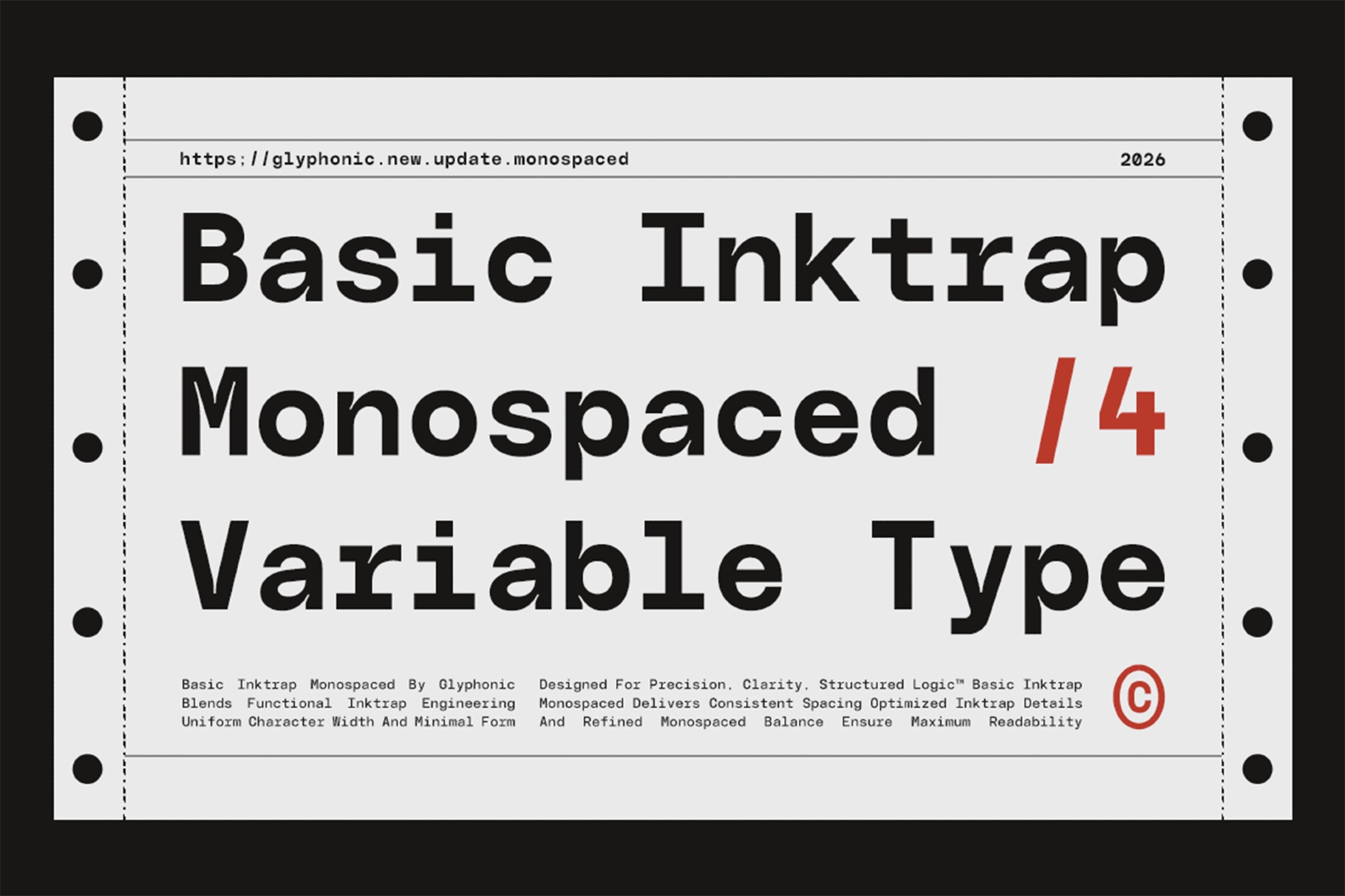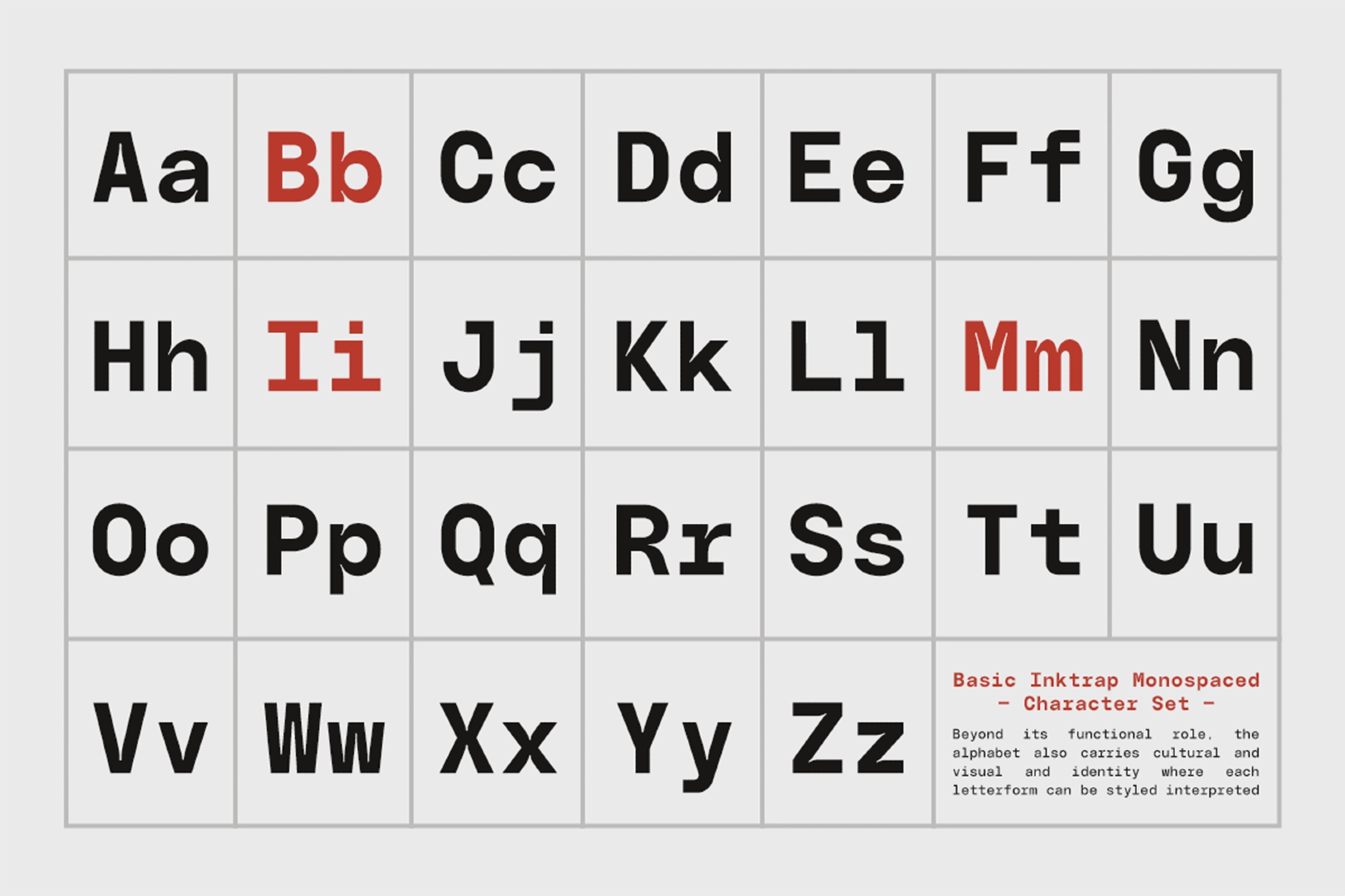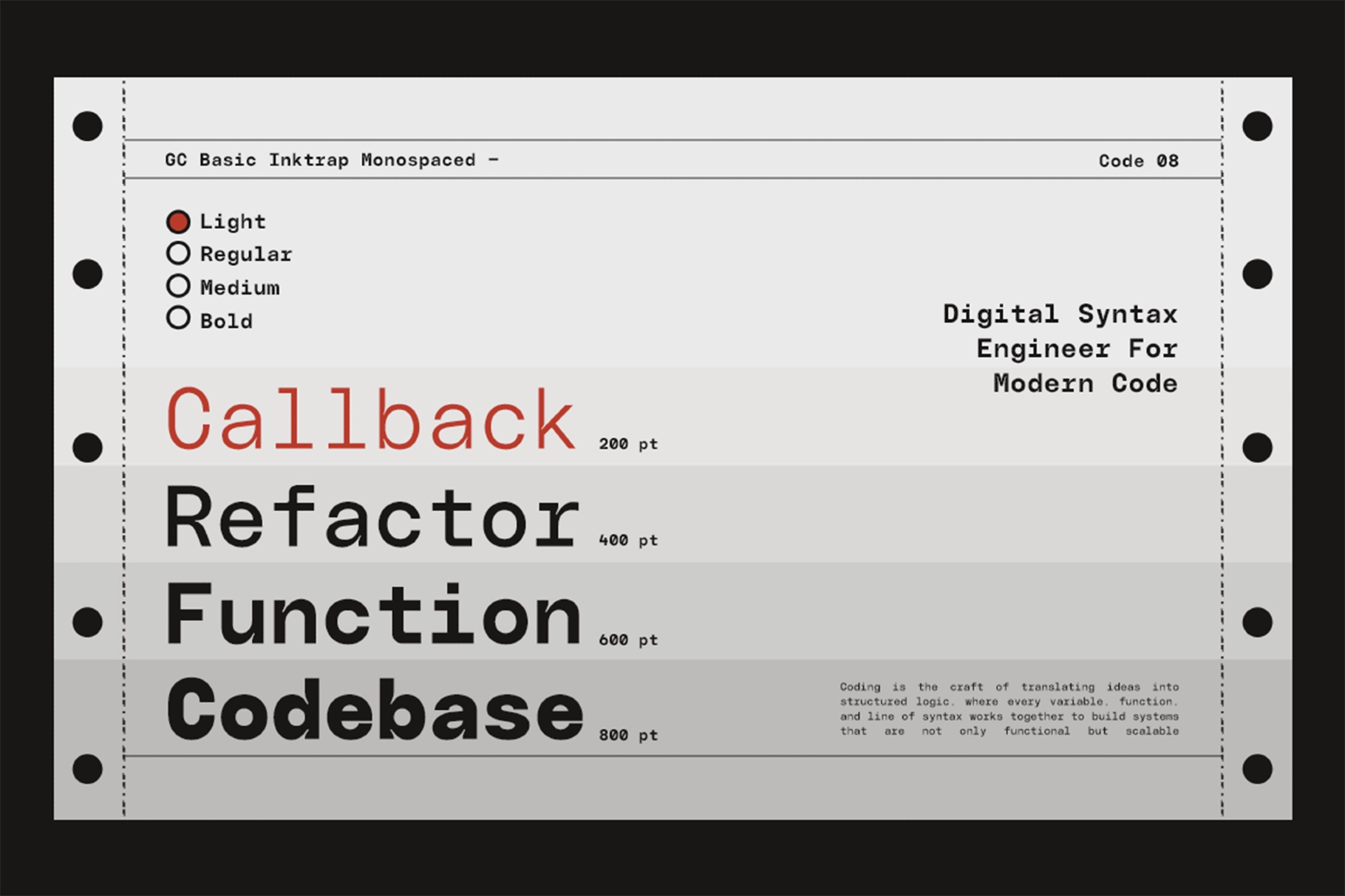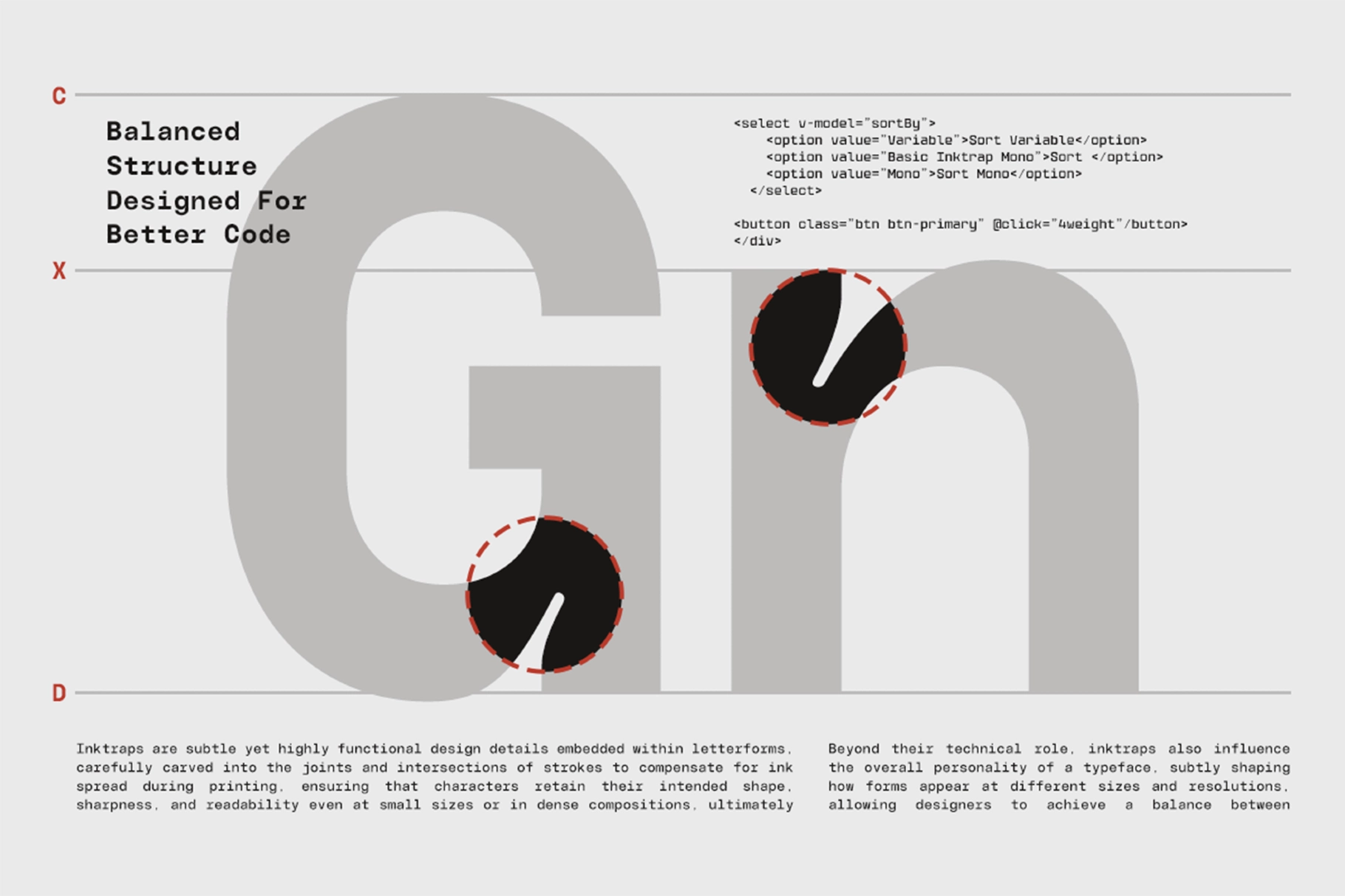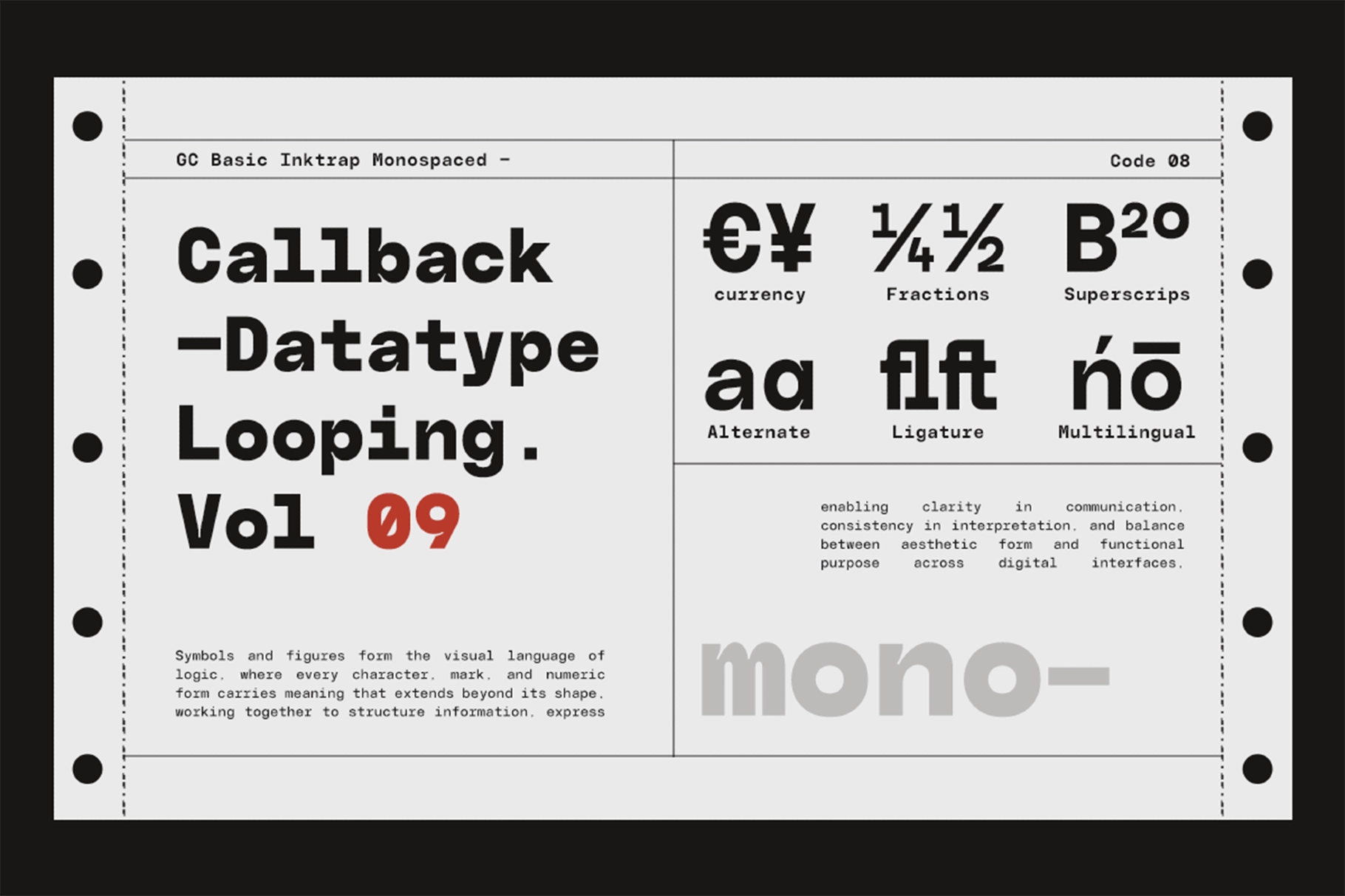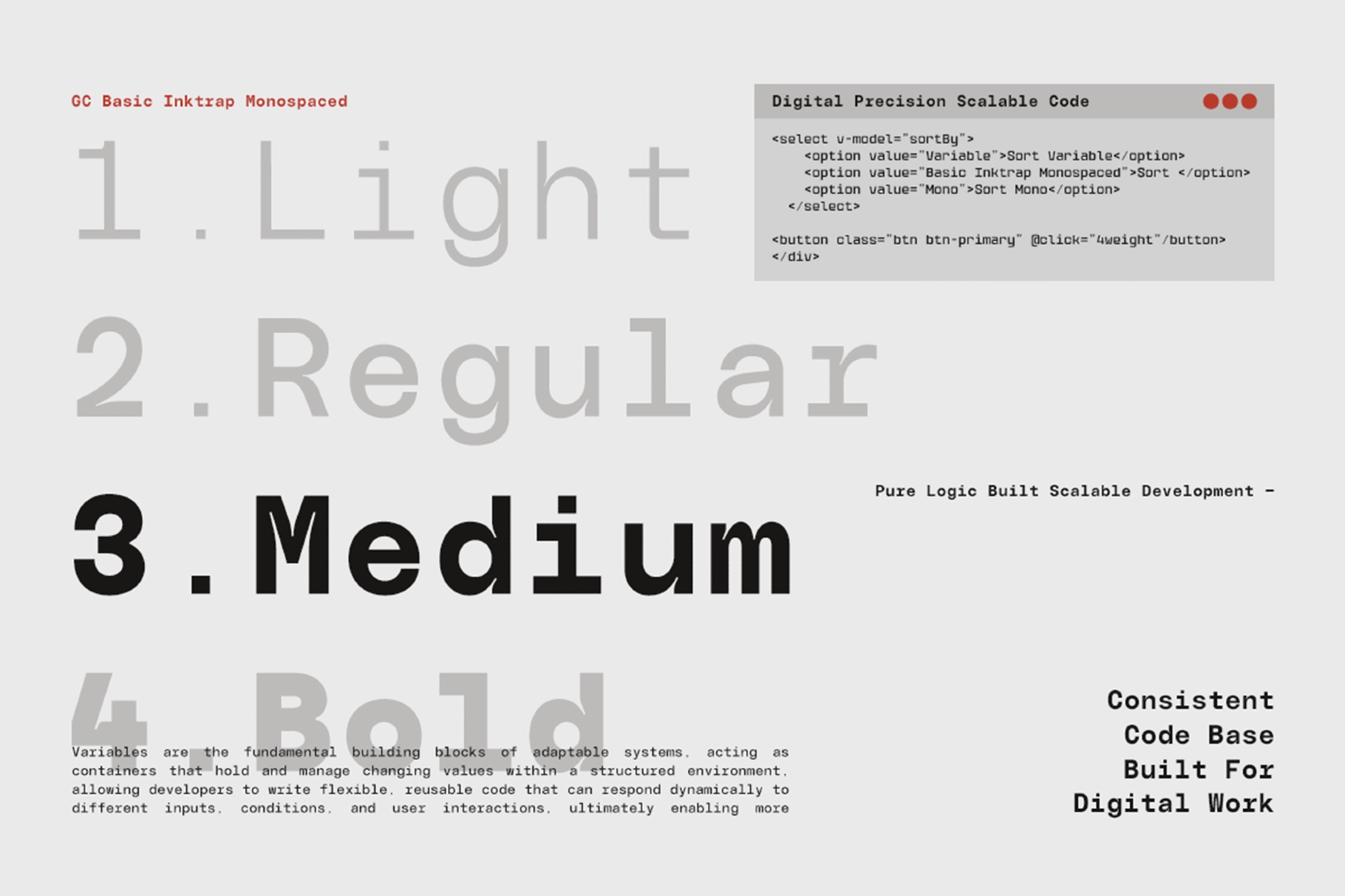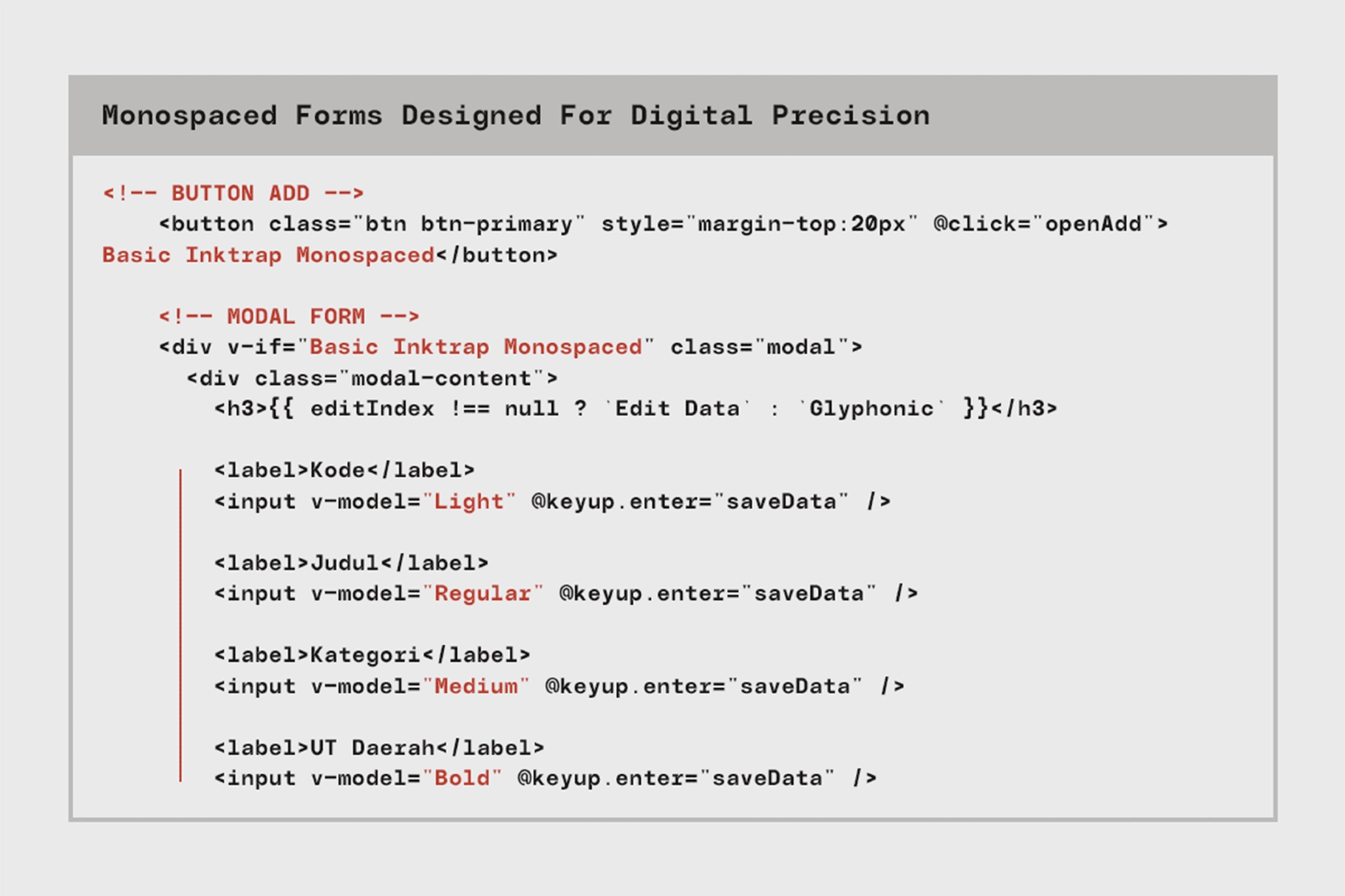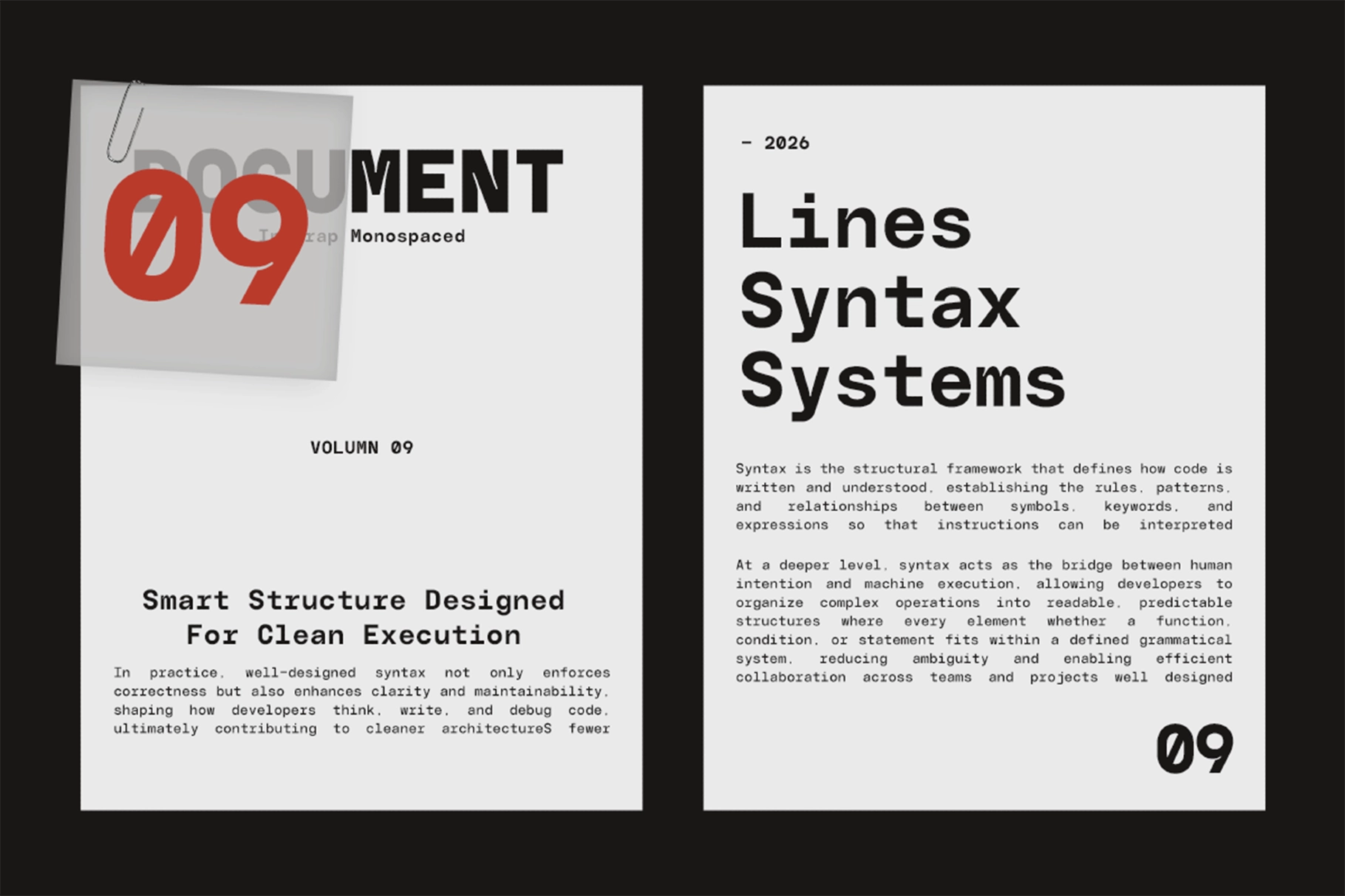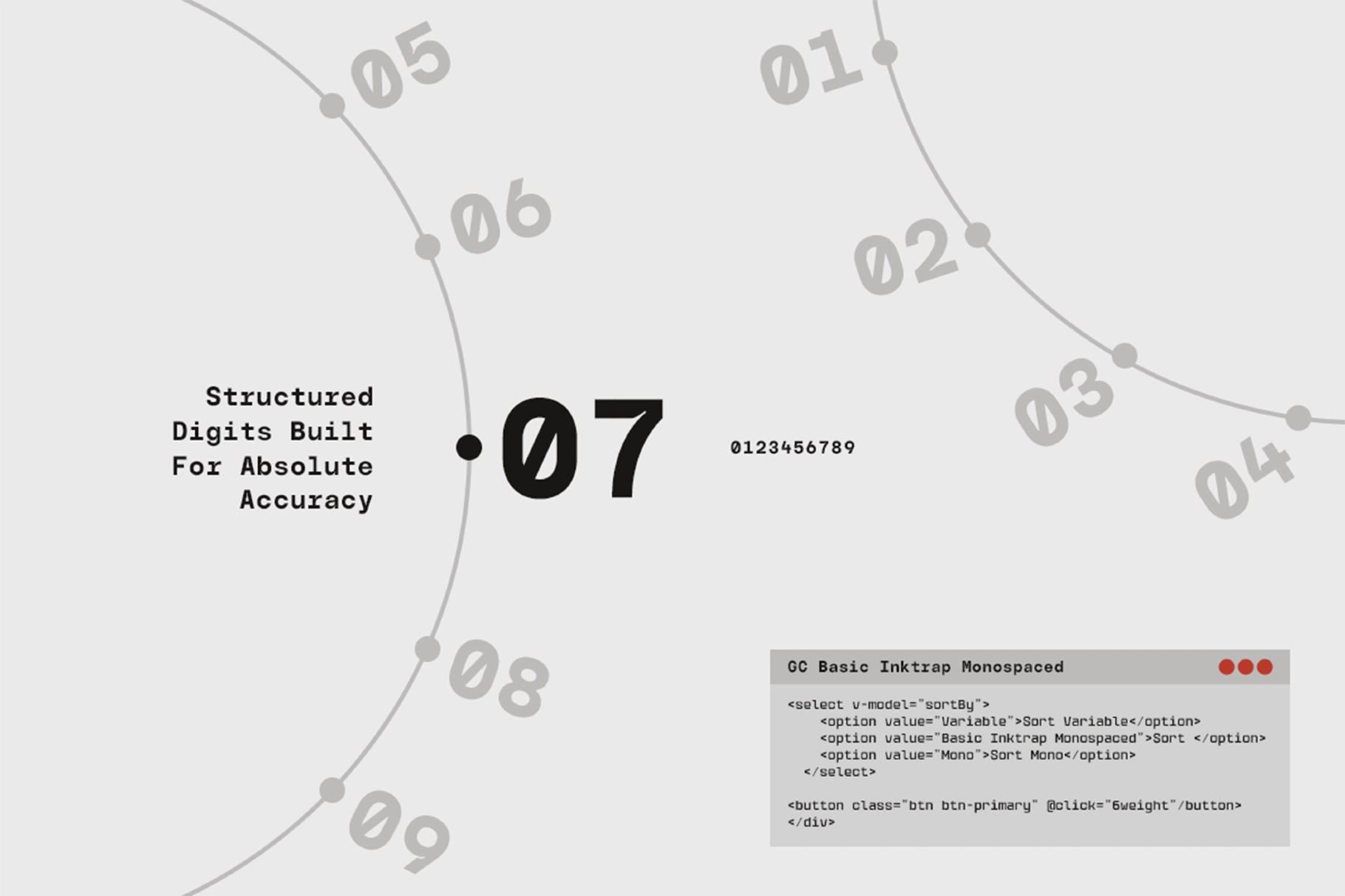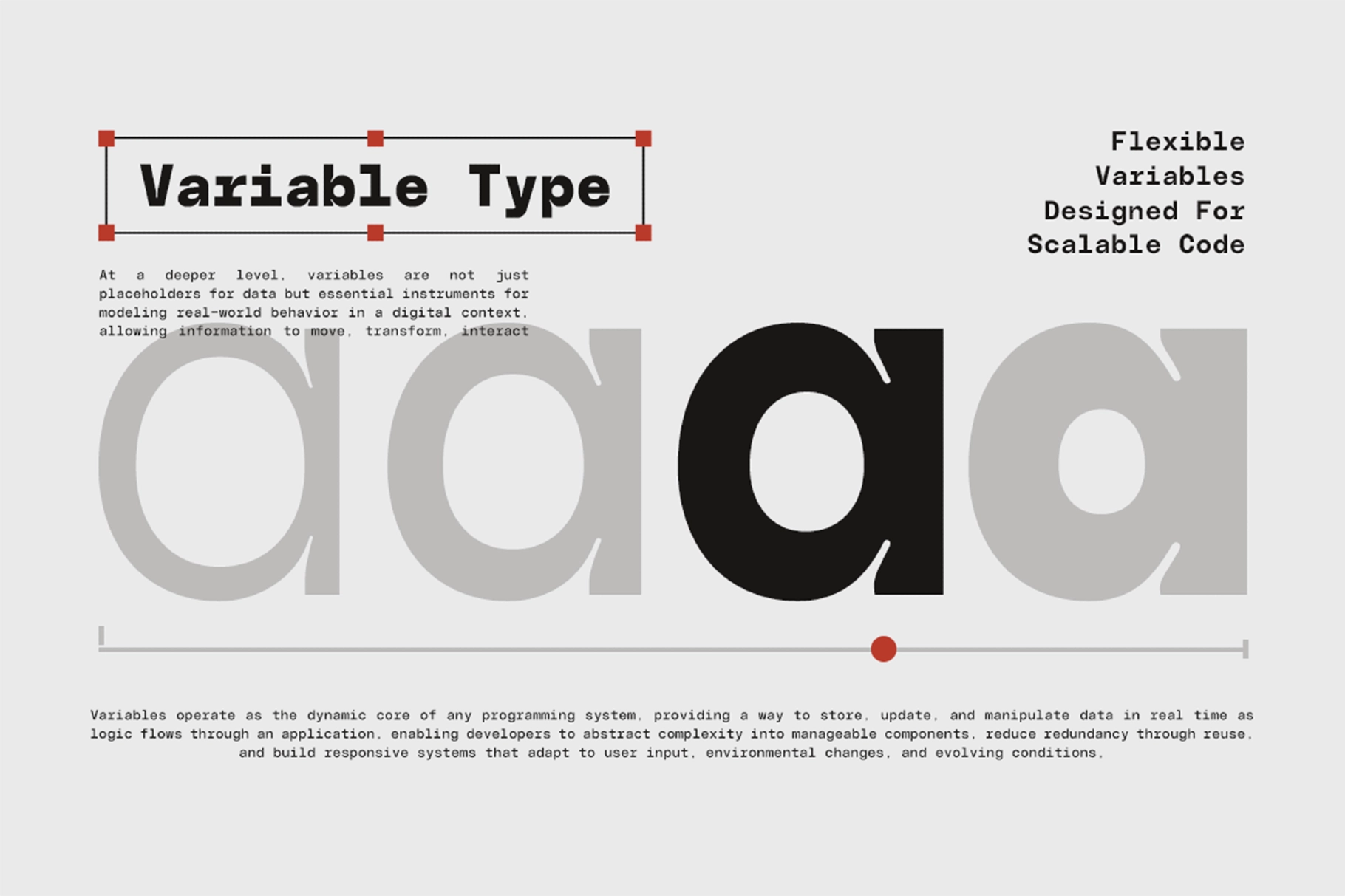
GC Basic Inktrap - Variable Monospace Font
This monospace typeface is precise, sturdy, and system-minded, with uniform spacing, bold proportions, and sharp inktrap cuts that keep the letterforms clear under pressure. The variable weight range gives designers room to set hierarchy across interface graphics, coding visuals, editorial layouts, and tech-forward identity systems.
Basic Inktrap works well for software branding, UI headers, code-inspired posters, developer portfolios, tech conference graphics, editorial systems, product dashboards, packaging labels, data visuals, terminal-style layouts, documentation covers, app landing pages, and more. It has the disciplined rhythm of a system font with the attitude of someone who color-codes their cables.
• Variable font with adjustable weight axis
• Monospaced construction
• Functional inktrap detailing
• Uppercase & lowercase
• Multilingual support for 170+ languages